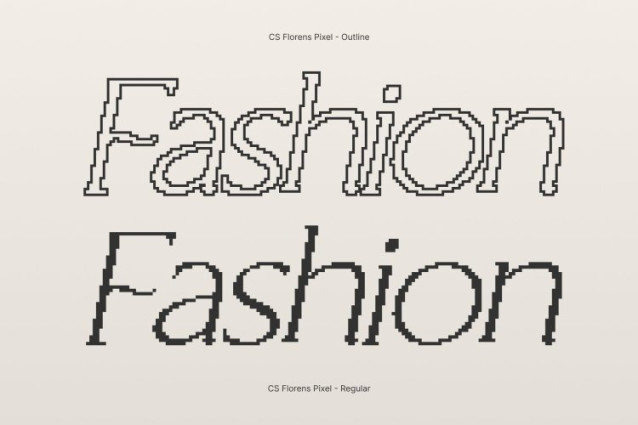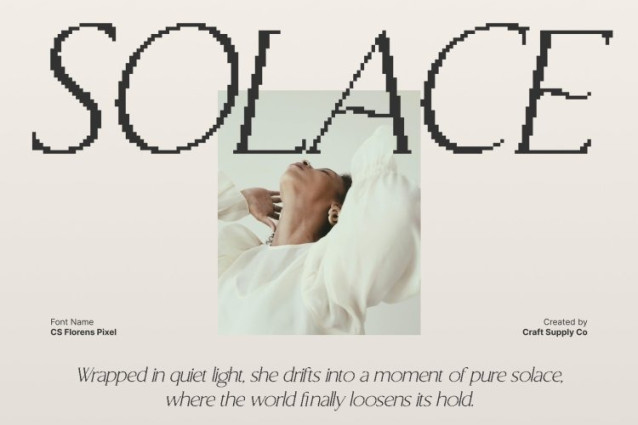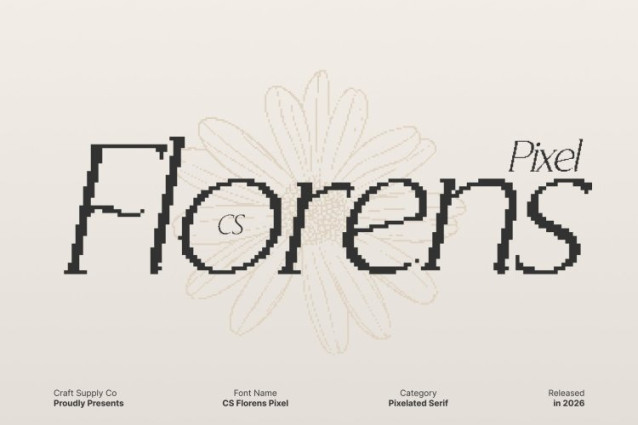
CS Florens Pixel Font This is an elegant serif font designed to express refinement, luxury, and clarity through a distinctive pixel style. Its graceful curves and carefully structured pixel details create a polished rhythm that feels dignified yet visually intriguing. The pixel treatment adds a subtle digital charm, blending classic elegance with retro-modern character.
Refined Geometry with Digital Precision
Built on a strong geometric foundation, this font maintains balance and harmony in every letterform. The pixel construction enhances its structure, giving the typography a precise, architectural feel while preserving its elegant serif identity. This refined geometry allows layouts to feel orderly, stylish, and visually confident.
Versatile for Premium and Digital Applications
This font adapts beautifully to editorials, branding, packaging, and luxury-inspired visuals. Its mix of classic serif sophistication and pixel aesthetics makes it ideal for both modern digital designs and old-technology inspired themes. The font feels timeless, yet fresh and relevant in contemporary visual culture.
Perfect for Luxurious and Retro-Digital Design
From high-end branding and magazine titles to elegant posters and digital displays, this font delivers a refined and memorable presence. The pixel style adds eye-catching character, making it perfect for designers seeking a sophisticated serif that stands out on screen while evoking a nostalgic digital elegance.